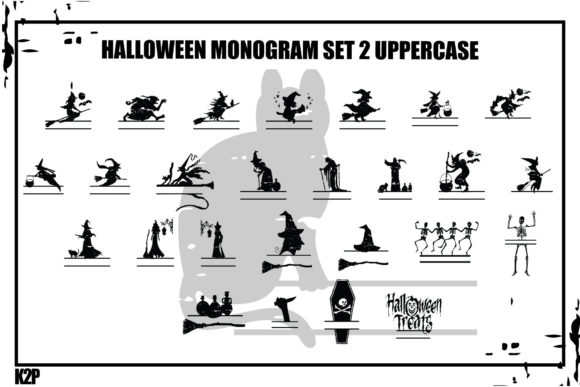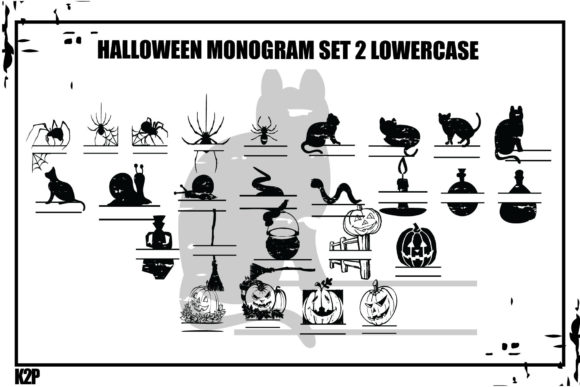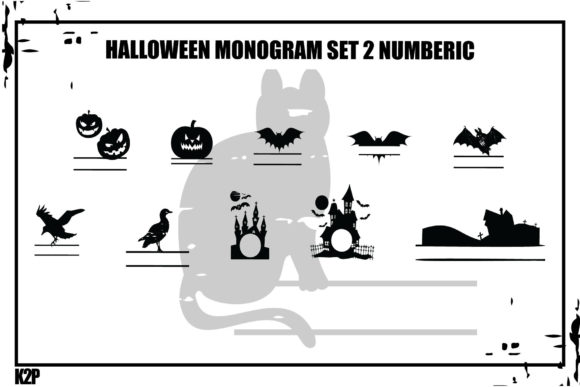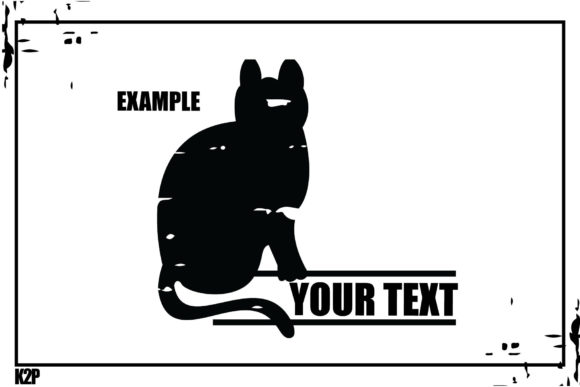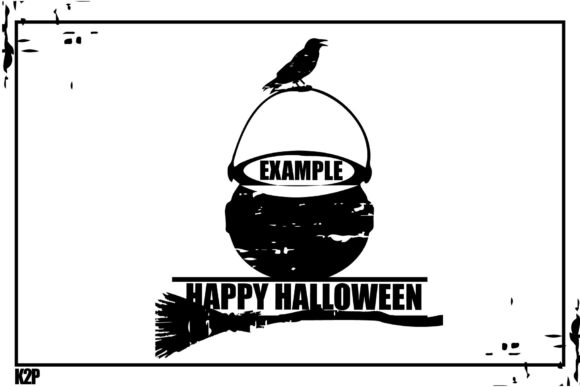
Introduction to Halloween Monogram Set2 Font
Halloween Monogram set2 is a cool and spooky dingbats font.
Key Features of Halloween Monogram Set2 Font